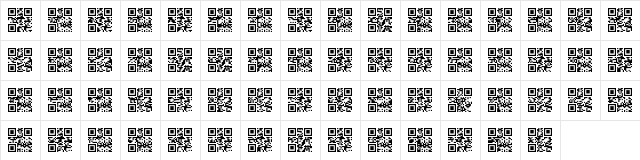
AlphanumericQR Regular
| Foundry | Rainkarnichi |
| Designer | Aydi Rainkarnichi |
Design Context for AlphanumericQR Typeface
AlphanumericQR takes a measured approach to typography — its balanced proportions and neutral character make it a reliable workhorse for both digital and print work.